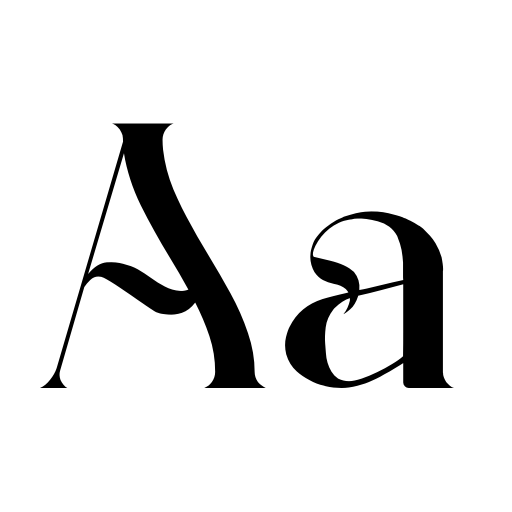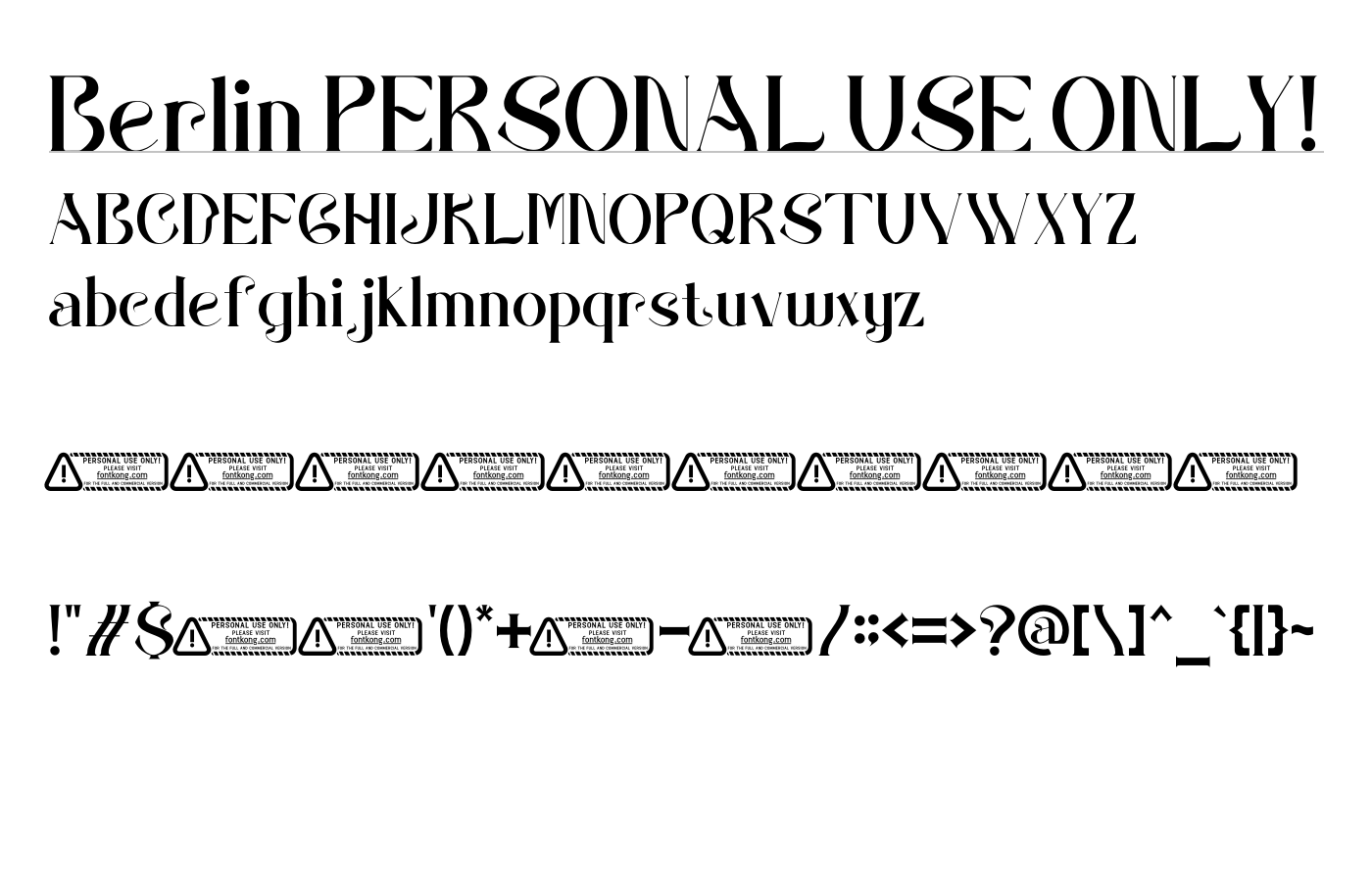
Berlin is a distinctive serif font with a tall, narrow structure and elegant high contrast between thick and thin strokes. Its sharp, stylized serifs and uniquely shaped letterforms give it a sophisticated, art deco-inspired feel that works beautifully for headlines, logos, and branding aiming for a vintage yet modern aesthetic. This font shines in fashion, editorial, and luxury contexts where a touch of refinement and character is needed to make a memorable impression.
Berlin PERSONAL USE ONLY! Font
About Berlin PERSONAL USE ONLY! Font